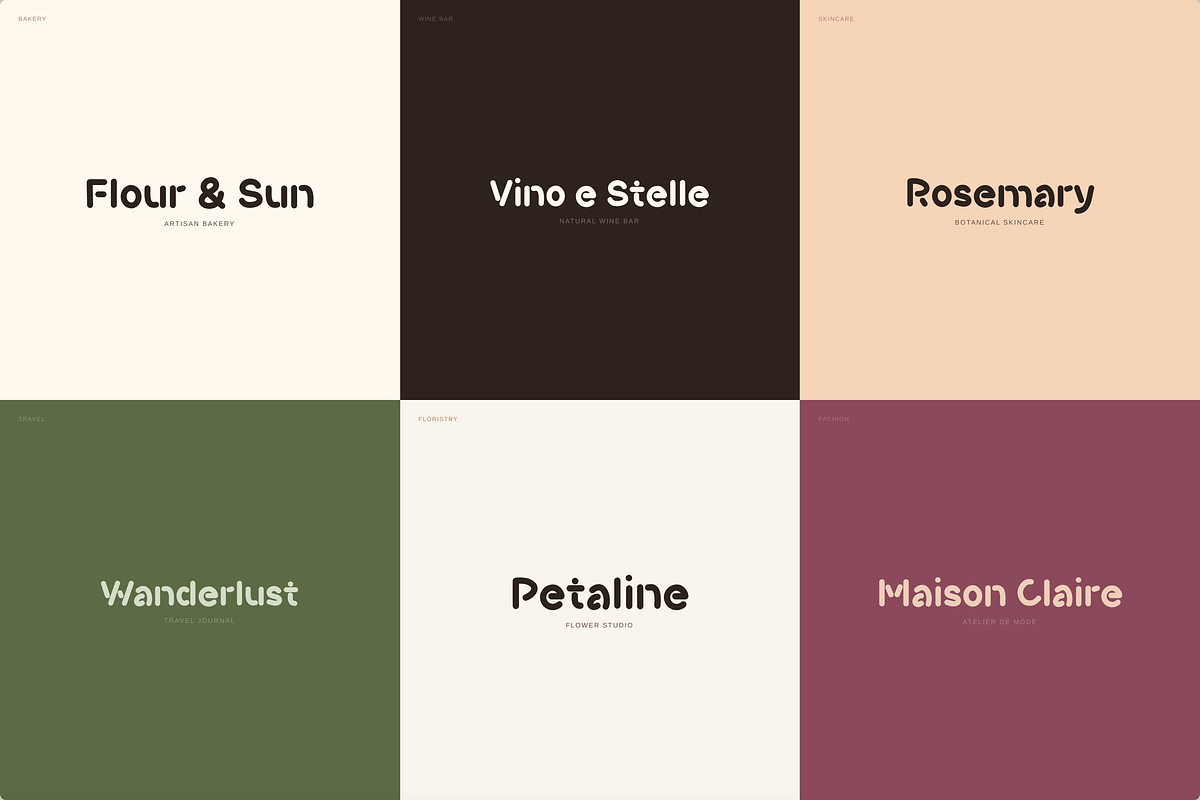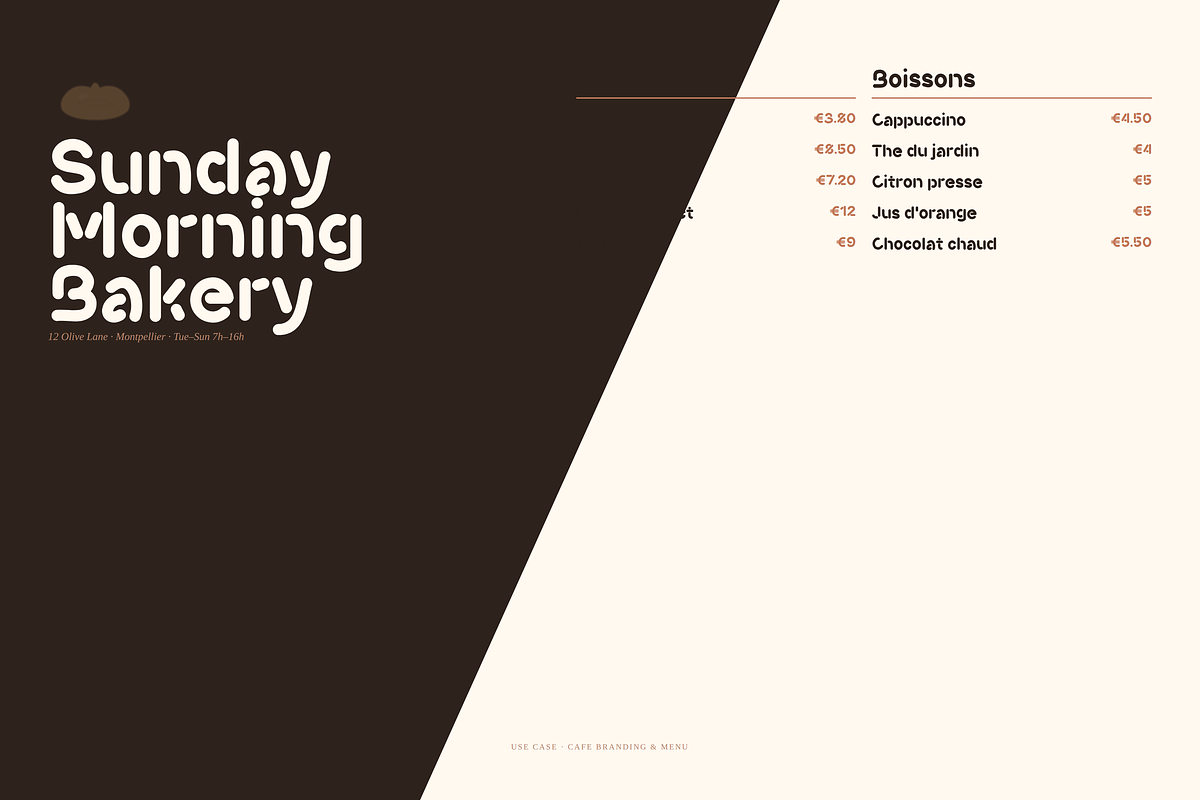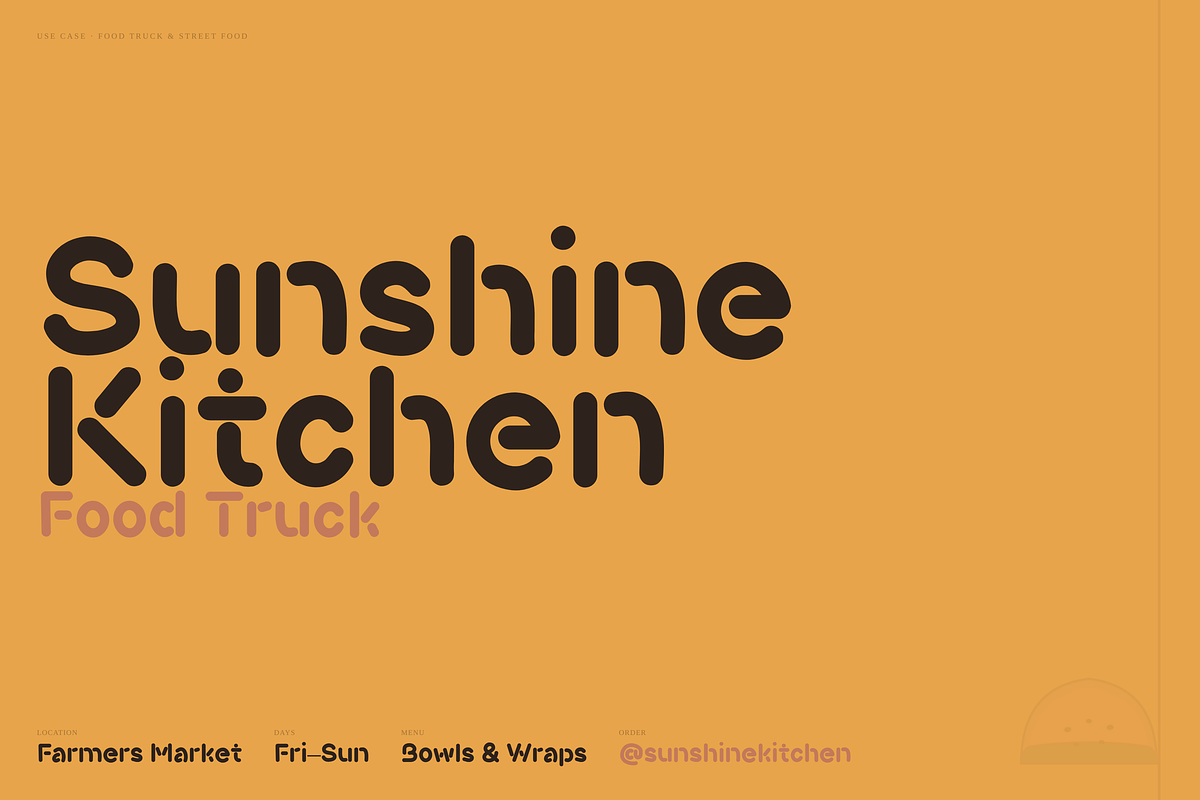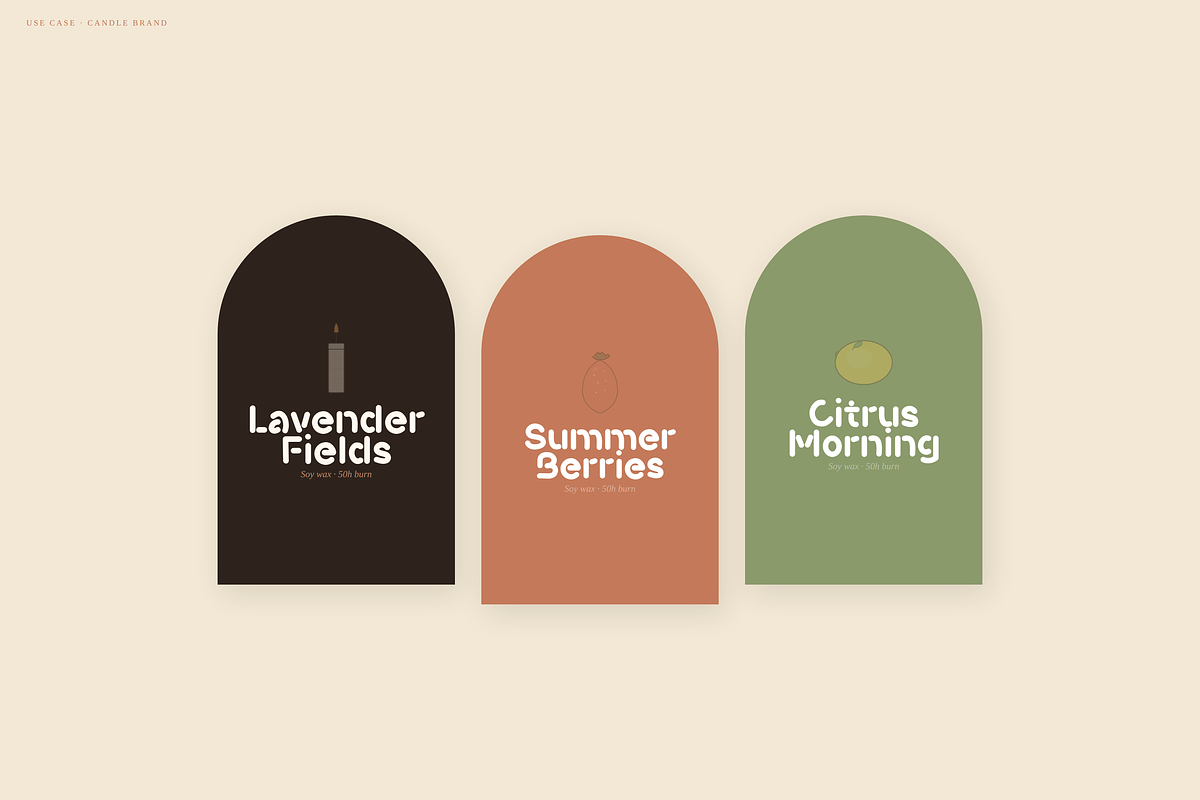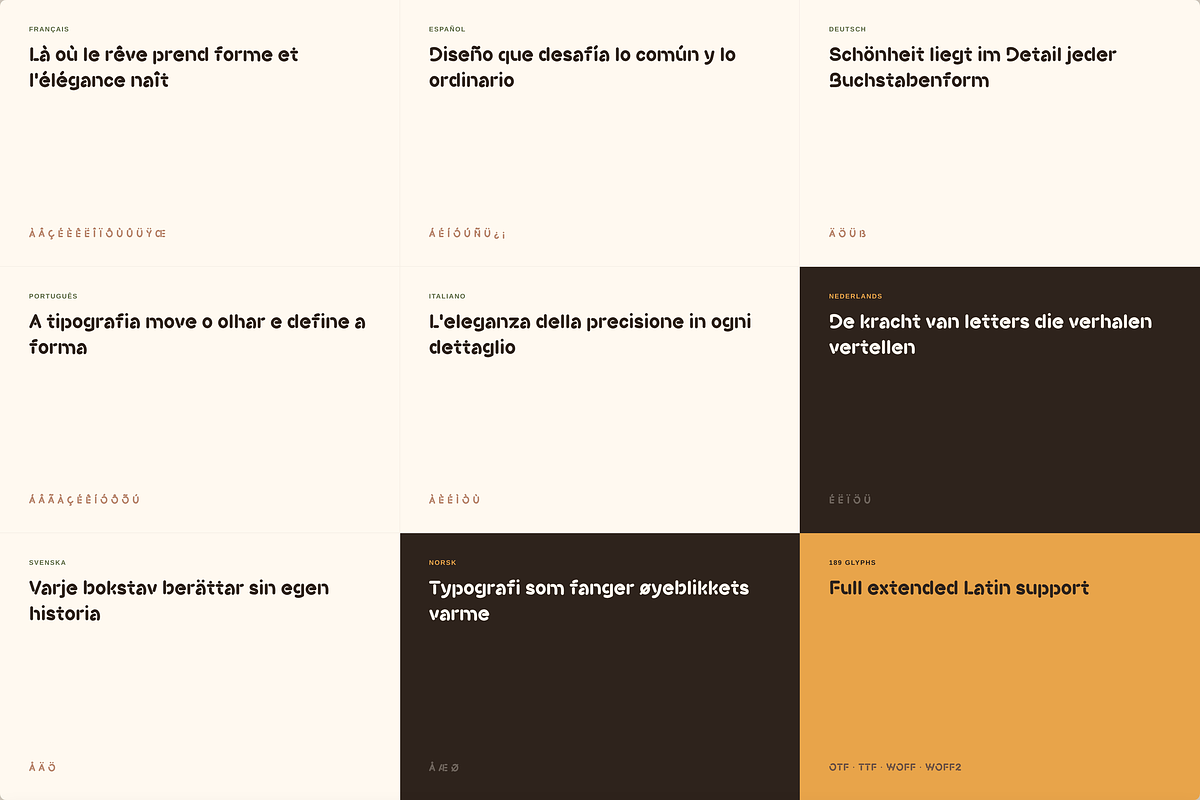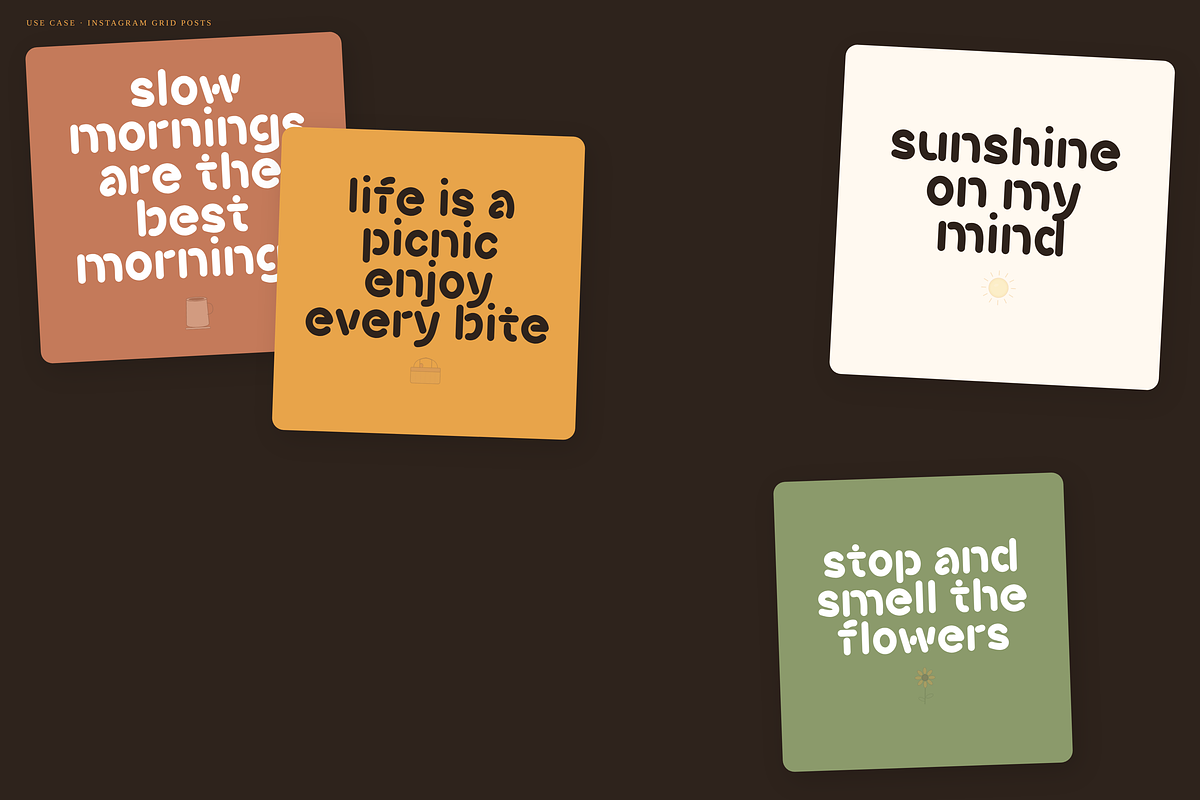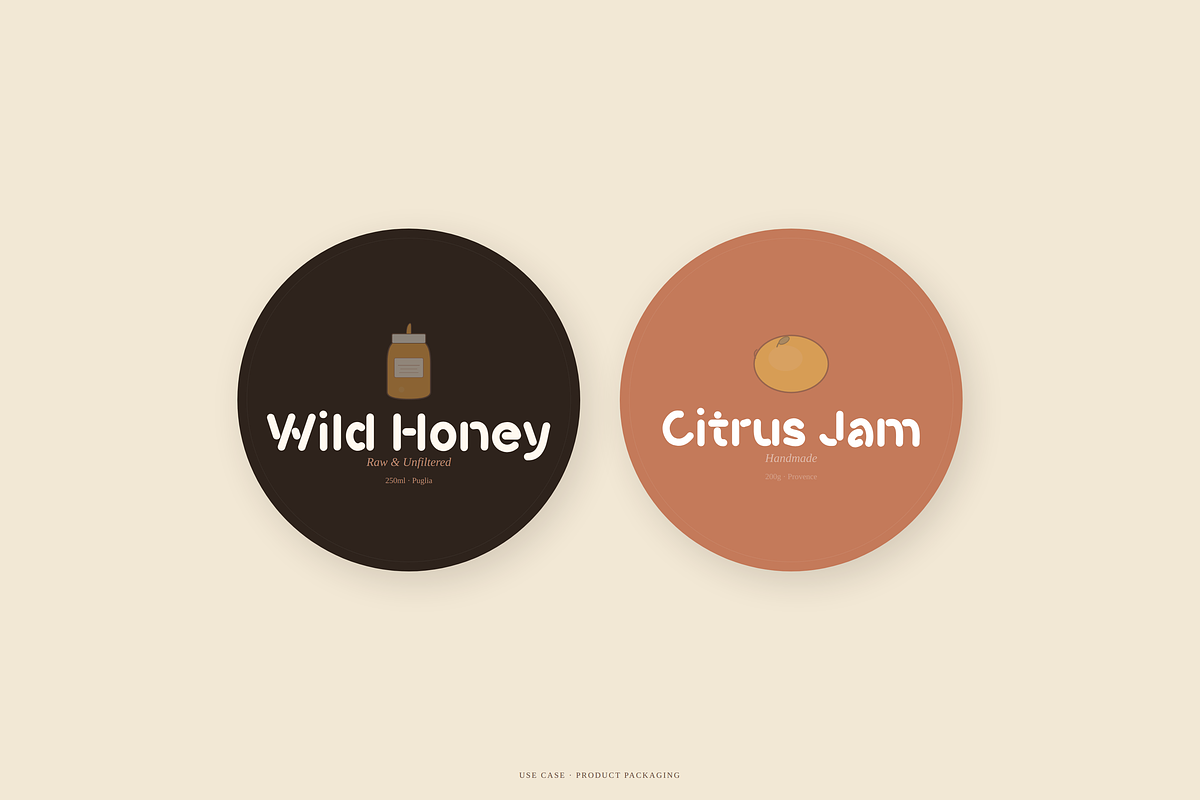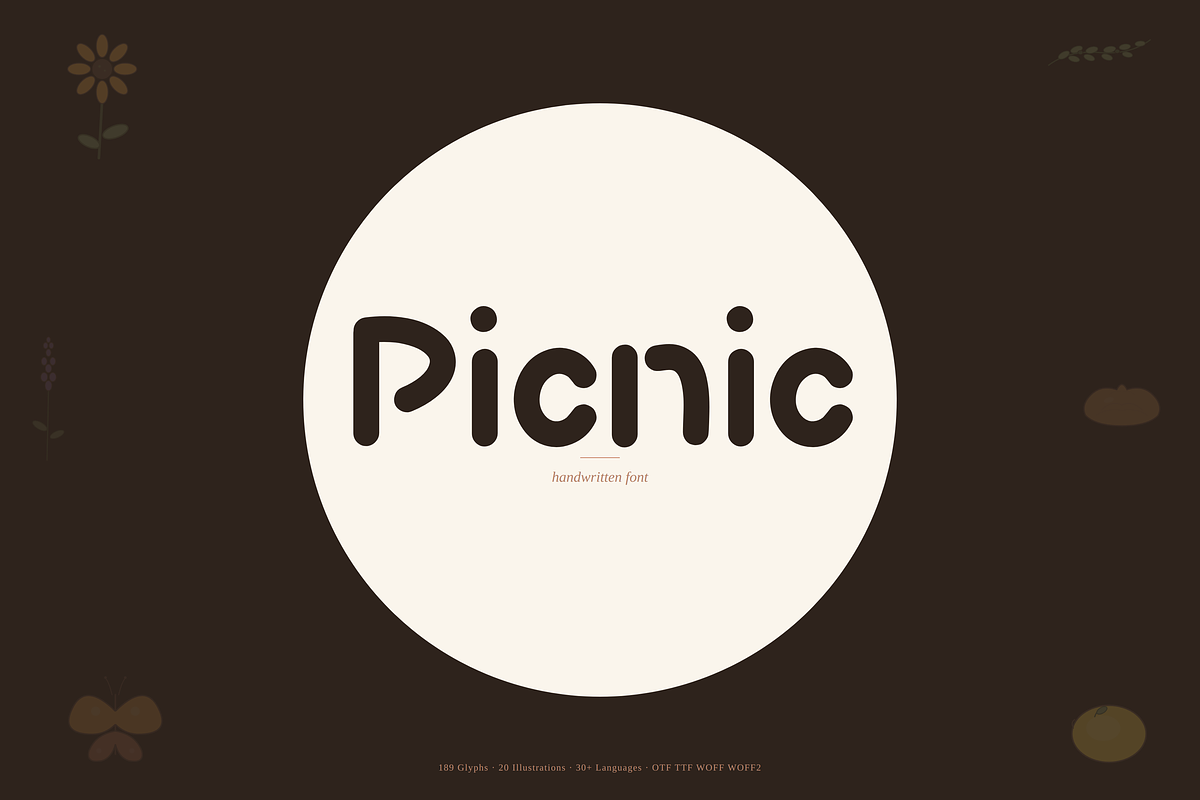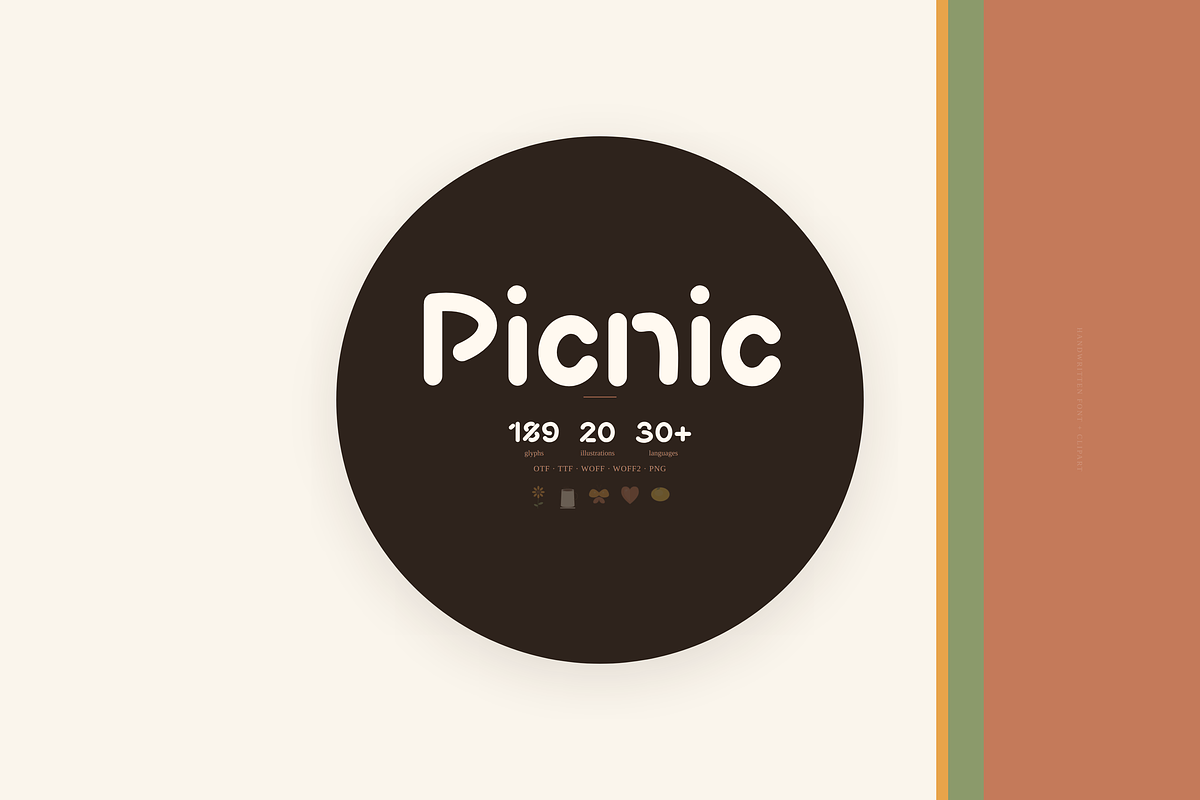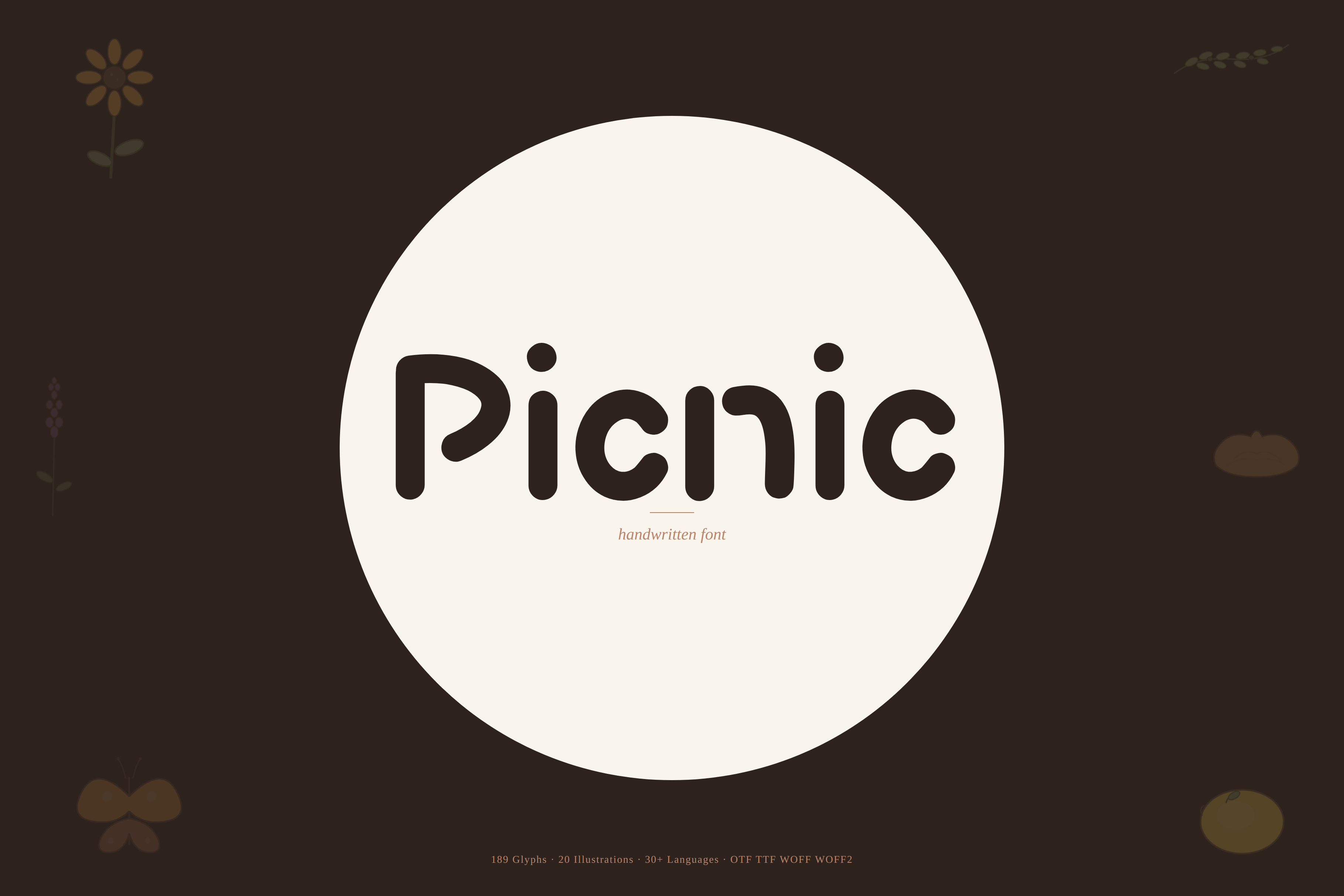
Picnic-groovy warm typeface
Picnic — Handwritten Font + 12 Illustrations
Introducing Picnic — a warm, sun-kissed handwritten font that feels like a lazy afternoon in the countryside. Every letter carries the organic rhythm of real pen-on-paper writing — imperfect, inviting, alive.
This isn't just a font — it's a complete design kit. You get the full Picnic font plus 12 matching hand-drawn illustrations, all in the same warm, organic style. Drop them into your designs together for instant character.
Picnic Font
- 189 carefully crafted glyphs
- Full uppercase & lowercase
- Numerals & punctuation
- Extended Latin character set
LANGUAGE SUPPORT (30+ languages): French, Spanish, German, Portuguese, Italian, Dutch, Swedish, Norwegian, Danish, Finnish, Icelandic, and many more. Full extended Latin including À Á Â Ã Ä Å Æ Ç È É Ê Ë Ì Í Î Ï Ñ Ò Ó Ô Õ Ö Ø Ù Ú Û Ü Ý ß Œ Š Ž Ł and more.